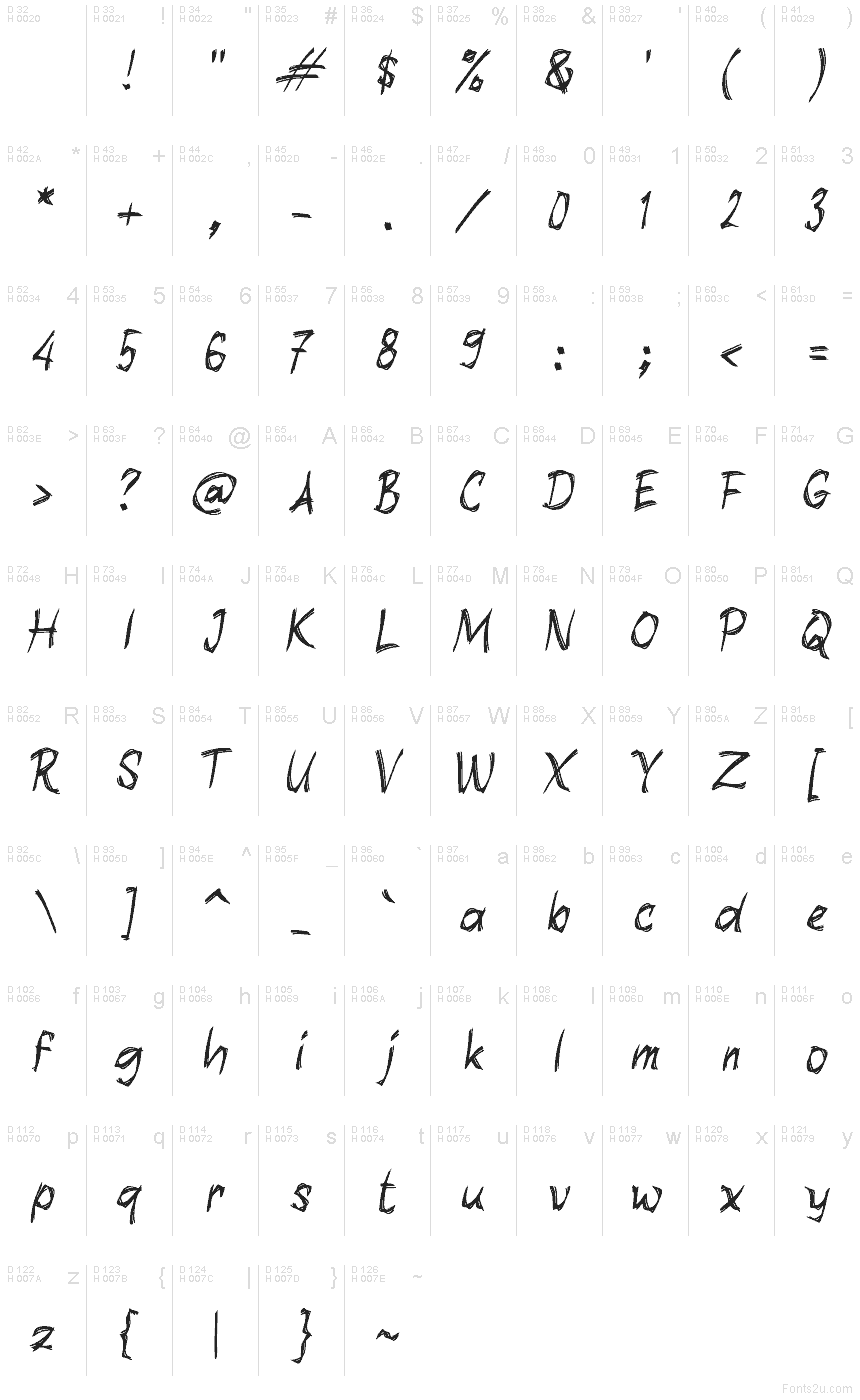
Imbas
Imbas font by wep is a free script font that gives off some rebellious vibes. The irregular trash style present in every character makes this two layered font suitable for original typography designs and text content that gets noticed easily. Its modern grunge appearance gets its inspiration from South Asian letterforms.
Discover new meanings and associations when using Imbas in headings, body texts, print designs or digital artworks. Create cool typography posters with it or even product packaging that spark interest. T-shirt graphics are other uses for this incredible creative resource together with album covers and website decorations among others!